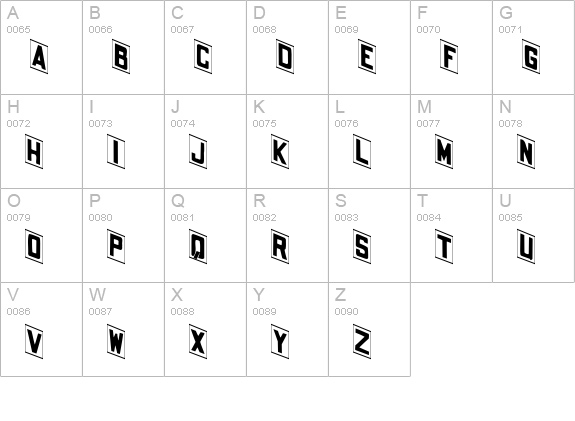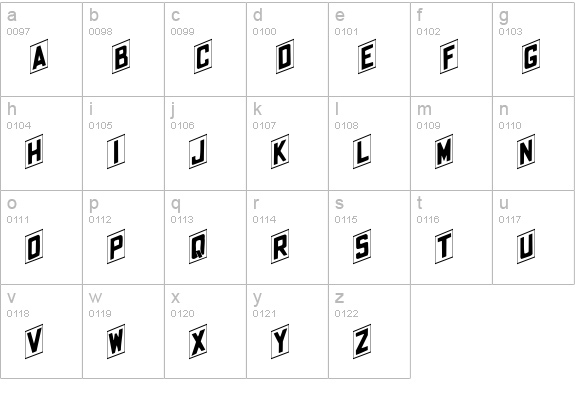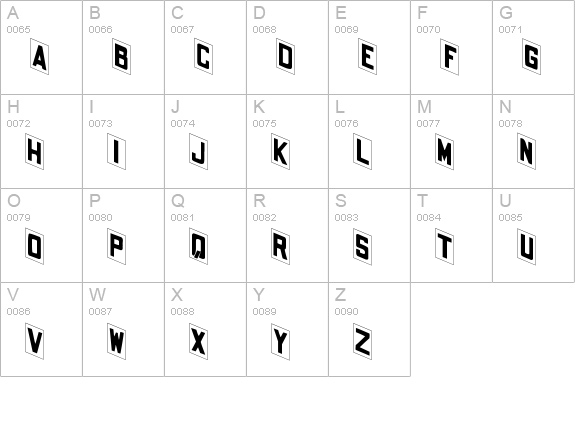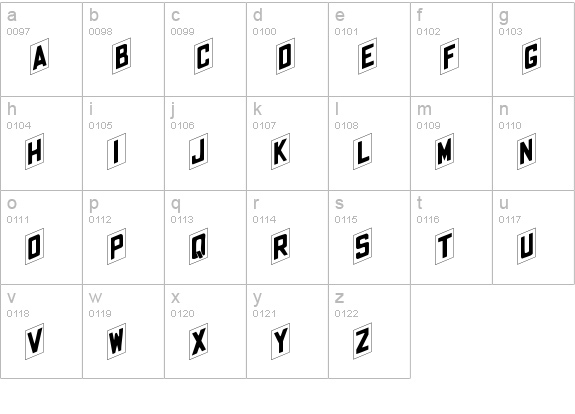
Shohl Plain Font Details
Shohl Plain is a stunning and versatile font that exudes a sense of simplicity and elegance. With its clean and crisp lines, this typeface is perfect for a wide range of creative projects, from branding and logo design to editorial layouts and web design. The beauty of Shohl Plain lies in its ability to effortlessly capture attention while maintaining a timeless appeal. Its neutral and balanced letterforms make it suitable for both headlines and body text, ensuring a pleasant reading experience for your audience. One of the most remarkable features of Shohl Plain is that it is available for free! You can easily download this font at FontsMarket.com and start using it in your projects right away. This generous offer allows designers and creatives to access a high-quality typeface without any cost, making it an ideal choice for those working on a tight budget or simply looking for a free option. Shohl Plain's versatility extends to its extensive character set, which includes uppercase and lowercase letters, numerals, punctuation marks, and special characters. This comprehensive collection ensures that you have all the necessary tools to create visually stunning and professional designs. Whether you are designing a sleek and modern website, a minimalist logo, or an eye-catching poster, Shohl Plain is the perfect font to bring your vision to life. Its simplicity and sophistication will add an extra touch of elegance to your projects, making them stand out from the crowd. So why wait? Download Shohl Plain for free at FontsMarket.com and unleash your creativity today. With this beautiful and freely available font, the possibilities are endless, and your designs are guaranteed to leave a lasting impression.